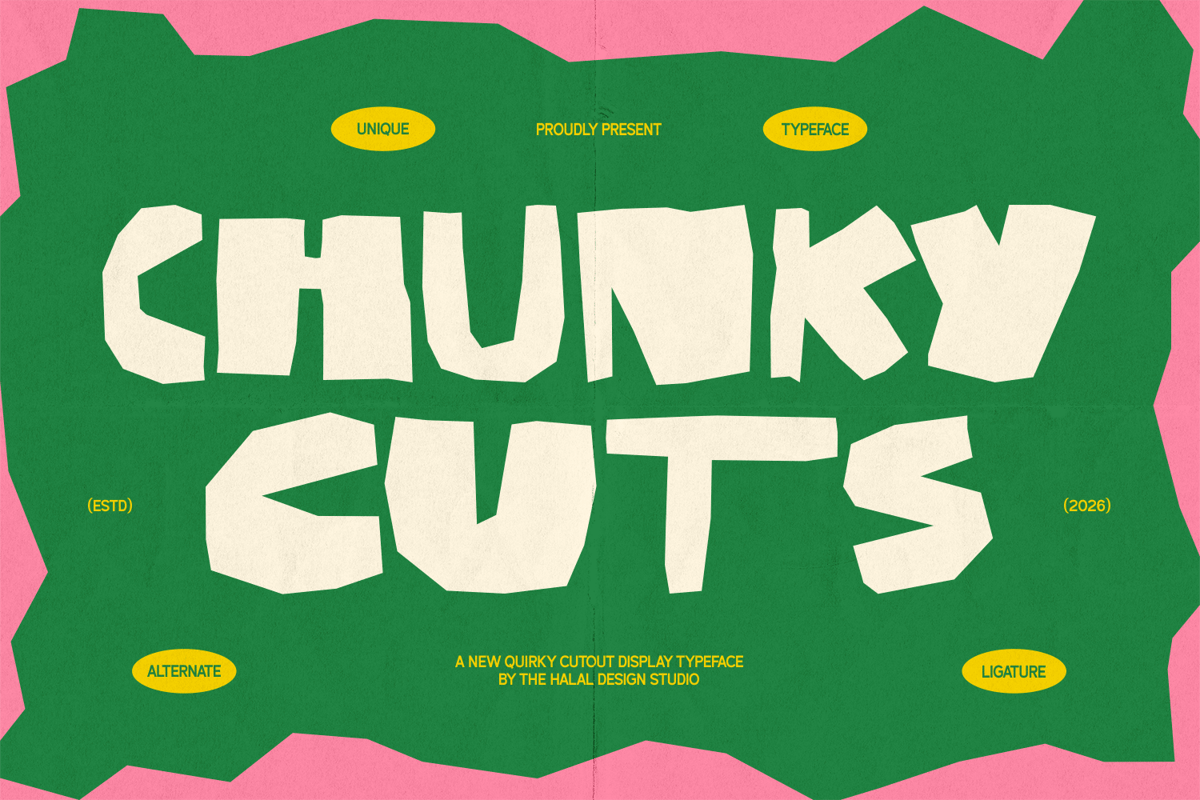
Chunky Cuts - Playful Papercut Font
Bold, chunky, and full of handcrafted charm — Chunky Cuts brings the fun of papercut art to your typography.
Chunky Cuts is a playful papercut typeface crafted to deliver a fun, bold, and handmade feel across a wide range of creative projects. Its chunky letterforms, cutout-inspired shapes, and charming irregular details give every design an energetic, cheerful personality that stands out instantly.
This typeface is ideal for:
- Kids' designs and children's branding
- Posters and packaging
- Stickers and labels
- Classroom and educational materials
- Social media graphics
- Playful and expressive brand identities
With built-in ligatures, alternate characters, and multilingual support, Chunky Cuts gives you the typographic flexibility to create lively, memorable designs with ease — in both print and digital formats.
- Ligatures and alternates for enhanced flexibility
- Multilingual language support